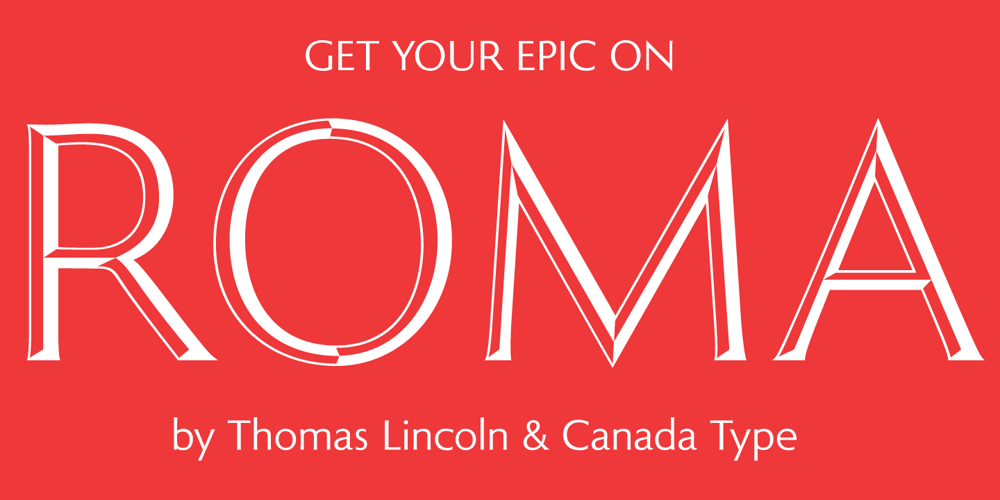
Roma
Roma font
Roma Font Family was designed by Thomas Lincoln and published by Canada Type. Roma contains 7 styles and family package options. Tom Lincoln’s award-winning type design work since the 1960s has been one way or another of expressing his fascination for the Roman majuscules inscribed at the base of the Trajan Column in Rome. This time he has really outdone himself by bringing us Roma, a definitive, contemporary, mature sans serif expression of those majuscules. With Roma, Lincoln is not satisfied with simply creating a proper “Trajan Sans”. He goes on to make it a family of four weights, with built-in small caps and oldstyle figures, then he really goes to town with the options he makes available for shading and multi-color settings. Precise renderings of the Roma capitals are provided in different fonts that can function individually or be layered atop each other for two- or three-color treatments. The Roma family comes with extended language support that spans the majority of Latin-based languages. For more information on the design, complete character sets, technological features, and print tests, consult the accompanying PDF.